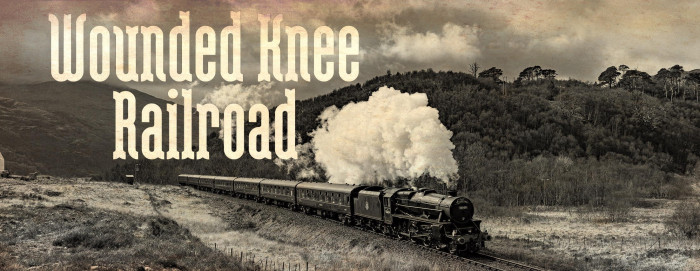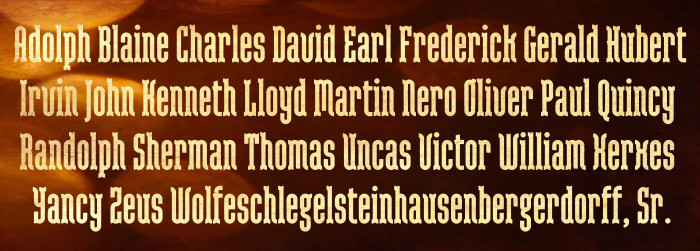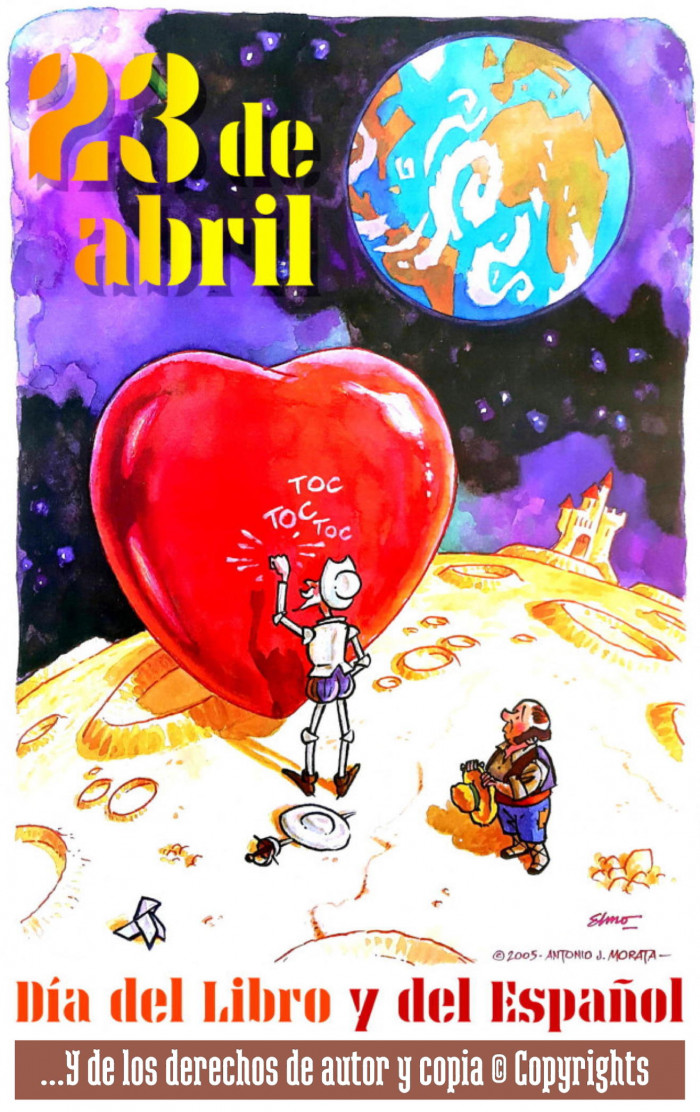
• Tall Modern Western Style font. Three extra glyphs "M", "N" and "Ñ" are placed at the ligatures "fi" and "fl" and the "™" sign. (Btw, this font started with a dreamed letter "R".)
Tall Modern Western Style font. Three extra glyphs "M", "N" and "Ñ" are placed at the ligatures "fi" and "fl" and the "™" sign. (Btw, this font started with a dreamed letter "R".)